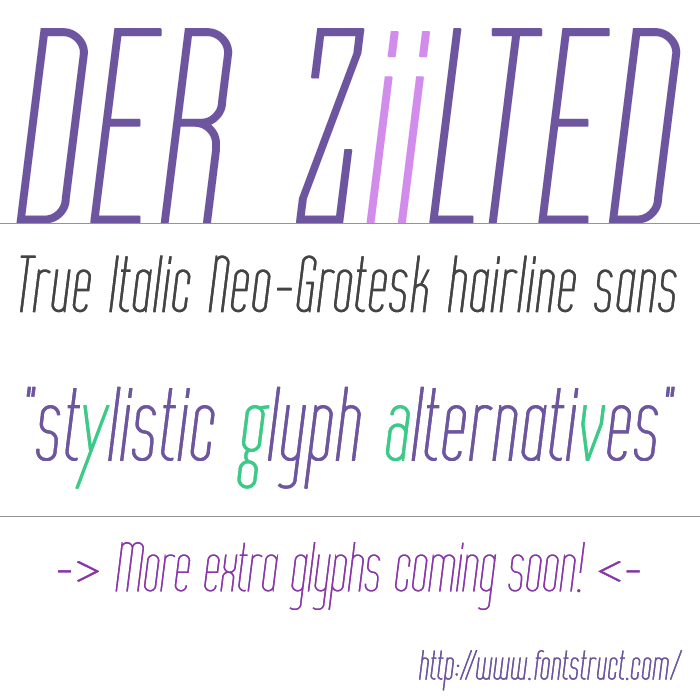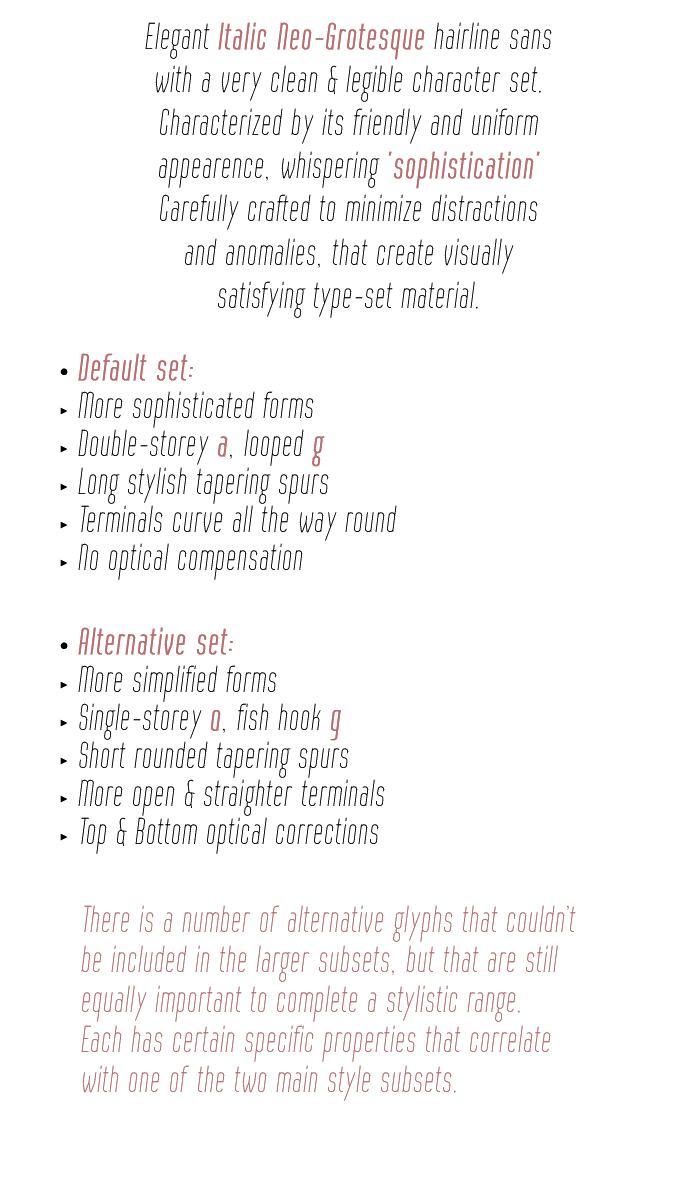
• DER ZiiLTED - Neo-Grotesk italic hairline sans
[ DESCRIPTION ]
The design is a simplistic slanted geometric hairline letterform with stylistic tapered spurs. Some extra glyph alternates were included to spice up this otherwise boring font, making it a little bit less boring.
The "DER ZIILTED" name was inspired by a poorly English speaking German person that is saying "The Tilted" in English but with a bad German emphasis on the phonetic sound of it hence 'der ziilted'
[ INSIDE THIS FONT ]
■  Basic latin character set with only essential punctuation marks
■  Stylistic alternates
• Double storey  lowercase 'a' & 'g'
• Spurless lowercase forms (still in trial stage and likely will change)
[ PROCESS ]
Let's start with mentioning that only recently I was still tested 'Very Green' for Italic genetic material (found 0.01%).
I have very little experience doing Italic designs in general, having done only a hand full of trials, and completed only a couple. This is actually only the third 'true' Italic font that I have ever made with Fontstruct, and the second one (I think) that got published. Don't ask me why it took me about 5 years to finally do another, but, let me tell you this; Looking back at it after doing this font — "I now know why". This was tough to say the least.
I can imagine designing Italic fonts in general comes with it's own set of challenges of course. Doing this in Fontstruct only adds numerous challenges on top of that — "what else is new, right?!" Nothing that wasn't expected for the most part. But "holy frog on a leopard", what do I absolutely positively very much regret the choice to do so in such a small stroke weight. This stripped away every possible tollerance and free space for finetuning and making finalizing adjustments to minute little details required to perfecting everything (curvatures, transitions, slants and optical compensation).
I did the best I could to get visual aesthetics at least acceptable, and somewhat complete enough character set for basic latin text. There remain some small imperfections present for now that still need to get addressed.
For example I started experimenting with trying to achieve acceptable optical compensations such as overshoot. For now I only temporarily applied this to the experimental 'spurless' glyph alternate set for trial testing purpose, looking for acceptable results. And only once I found all the necessary solutions for each requisite glyph I transfer these adjustments one by one to the main character set. But all options remain open for the time being, it might so happen that in a later stage I decide not to implement them after all.
The 'spurless' glyph alternates will remain included to the project, but in what final form for now remains uncertain.
So from a typographer's point of view the font surely will look very basic and perhaps even simplistic. But looking at it from a Fontstructor's perspective, this was a lot more than just the average walk in the park for me.
But to be honest, I doubt I will do another Italic Fontstruction any time soon, haha
I hope you like it so far.
Okay, some pretty major important changes were made since it was published yesterday.
First of all I have adjusted many of the characters to make everything look a lot more cohesive and unified throughout the full character set.
Eventually I got so satisfied with the more angular forms for glyphs such as: "KVvWwXxYyZz" that I have relocated them to the Basic-Latin set to be the default style for the font. Initially these were the experimental alternative forms and had numerous irregularities. Having all their glyph widths, sloped angles plus their respective stroke weights done right everything just fel in to place. In resonse to this, I have placed the more rounded forms back in the now available locations for their correlating glyph alernatives. I have done the same with the double and single storey lowercase variations, with the double-storey now being the font's default style.
The next thing in line to get processed is optical compensation on the vertical axis and see if I can come up with a solution for implementing this in a convincing fashion to all the required characters.
Damnz this design couldn't possibly get more challenging